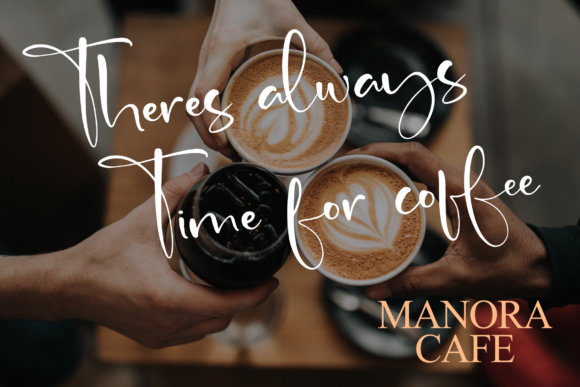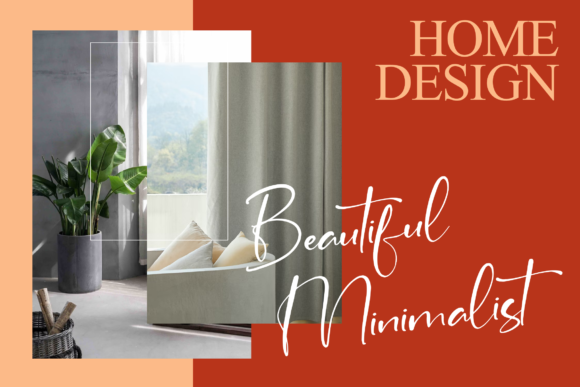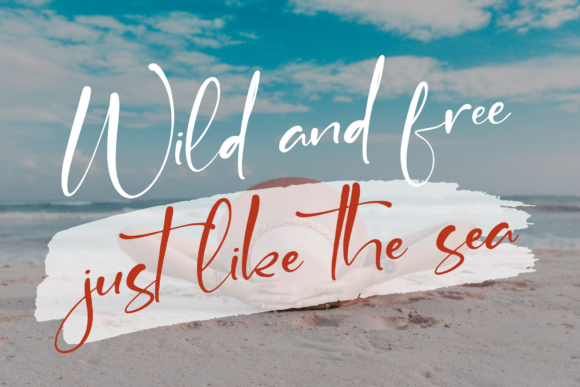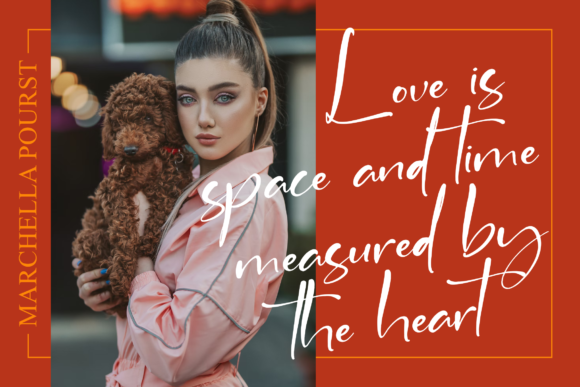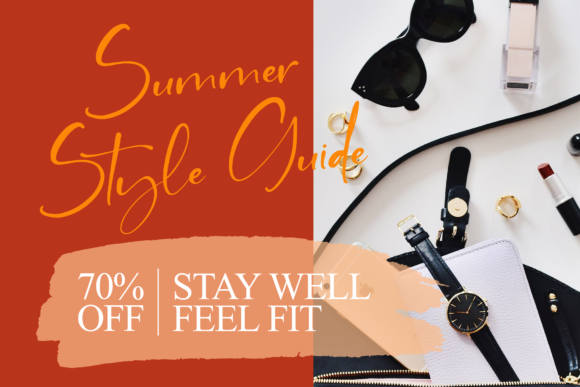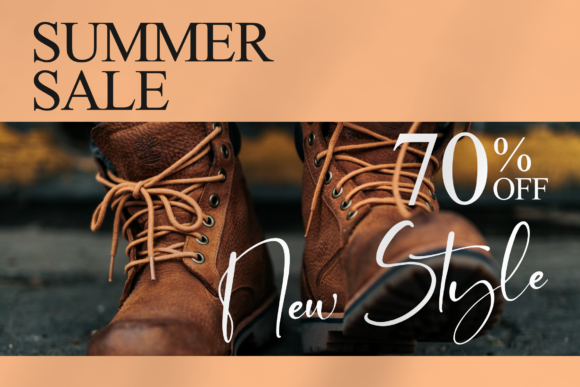
Introduction to Meghalyna Font
Have you ever found yourself lost in a world of ideas, with a spark of creativity that just won’t quit? For designers, this moment is a treasure trove of possibilities, and the right design resource can make all the difference. When working on a creative project, nothing beats the feeling of stumbling upon a perfect font that elevates your entire design.
This is where the Meghalyna Font comes in – a beautifully handwritten font that exudes elegance and sophistication. With its transparent background and high-quality design, it’s the perfect addition to any project, from logos and branding to homeware designs and product packaging.
Key Features of Meghalyna Font
- High-quality, elegant script font perfect for creative projects and design resources.
- Unique, hand-crafted script style with a touch of sophistication, making it a great design resource for various creative projects.
Honest Review: Meghalyna Font
As a designer, I’m always on the lookout for high-quality fonts to enhance my creative projects. Recently, I had the chance to try out the Meghalyna Font, and I’m here to share my honest thoughts.
- ✨ High-quality design: The Meghalyna Font has a unique, elegant look that’s perfect for any design project.
- ⚠️ Limited language support: Unfortunately, the Meghalyna Font only supports a limited number of languages, which may be a drawback for designers working on international projects.
- ⚠️ Not suitable for all projects: While the font is beautiful, it may not be the best choice for projects that require a more modern or bold look.
Overall, I think the Meghalyna Font is a great addition to any designer’s toolkit. While it may have some limitations, its unique design and free availability make it a valuable resource for creative projects. If you’re looking for a high-quality font to enhance your designs, I’d definitely recommend giving the Meghalyna Font a try.
Meghalyna Font: A High-Quality Design Resource
Tips for Getting the Most Out of Meghalyna Font
To get the most out of Meghalyna Font, use it in combination with other design elements, such as images and graphics. Experiment with different font sizes, colors, and styles to create unique and engaging designs. With its high-quality design and transparent background, Meghalyna Font is a valuable design resource for any creative project.
Common Use Cases for Meghalyna Font